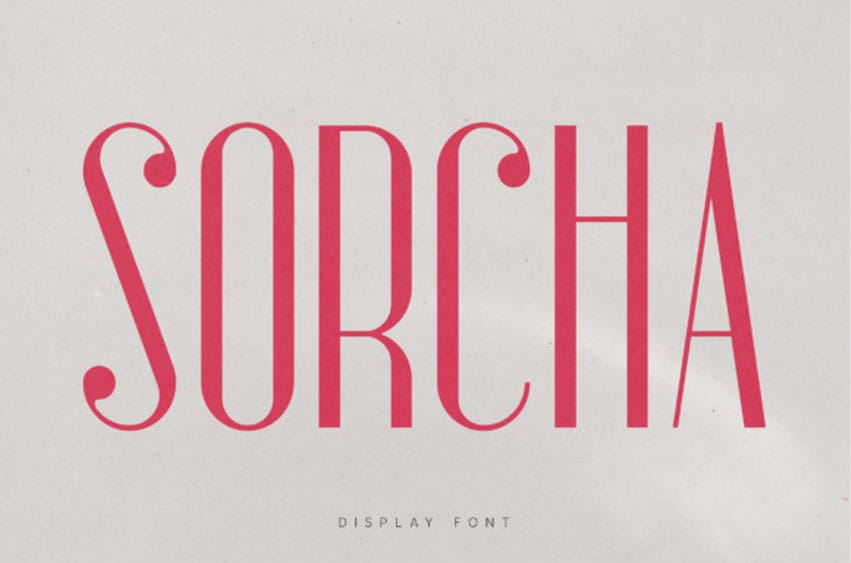
Sorcha Font Redefine sophistication with Sorcha, a high-contrast display font designed for modern precision. Sorcha is defined by its extreme verticality and slender proportions, offering an architectural elegance that feels both grounded and airy.
Its unique character stems from the oversized circular terminals (ball serifs) paired with razor-thin stems, making it the definitive choice for brands that want to communicate “chic luxury.”
Best Used For: High-fashion branding, luxury magazine headers, boutique logos, and upscale editorial layouts.